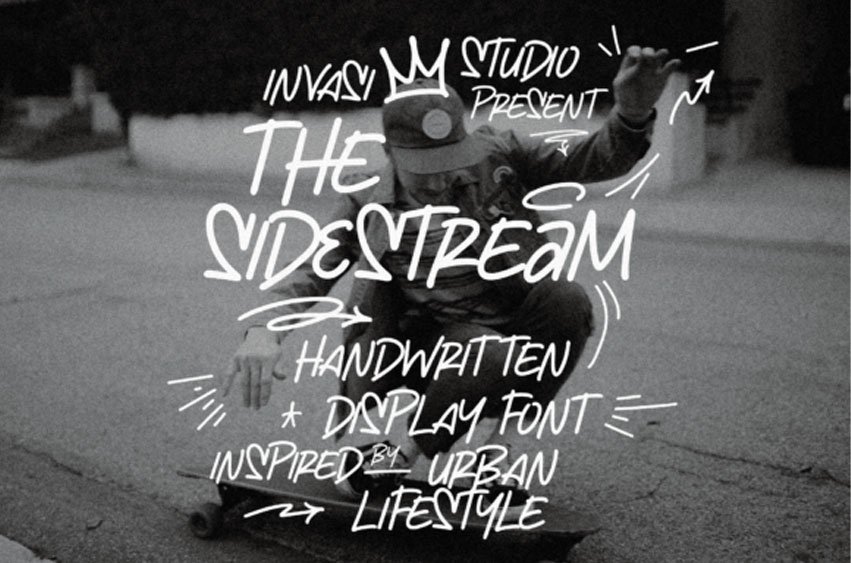
The Sidestream Font is a graffiti-styled display font that has a street art vibe.
This font is suitable for designs such as t-shirts, sportswear, logos, advertisements, clothing, and more.